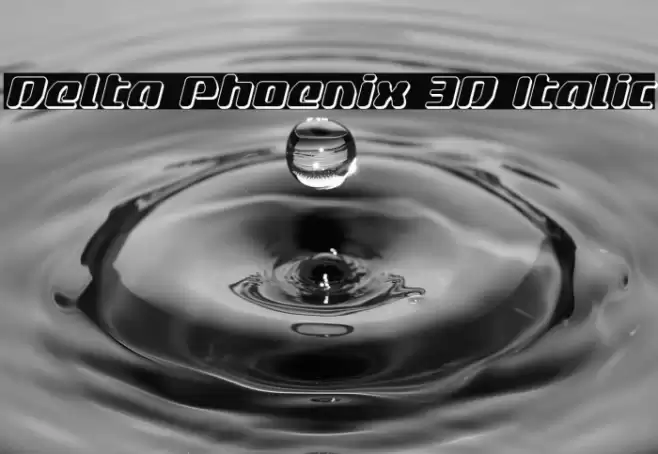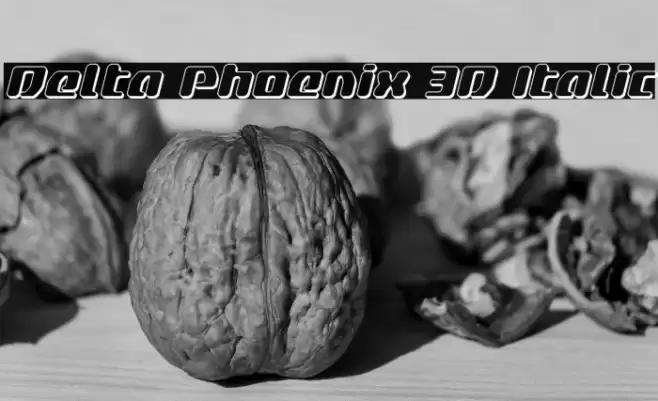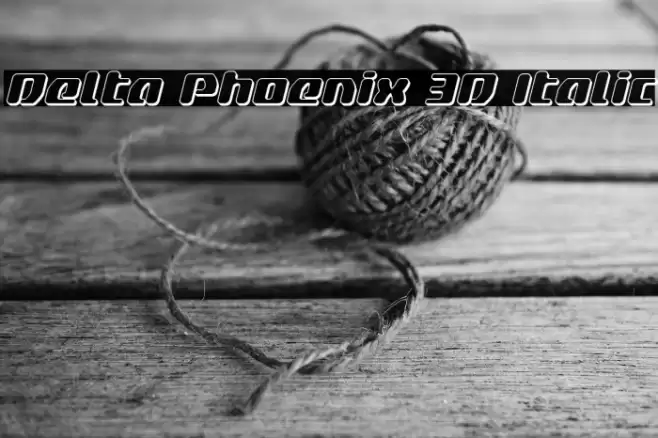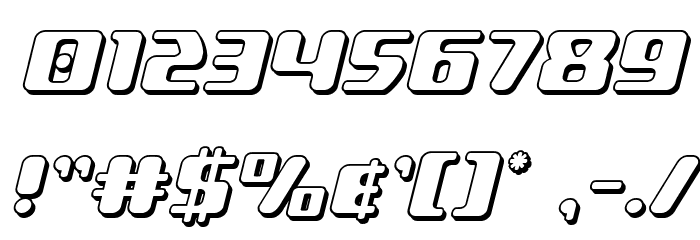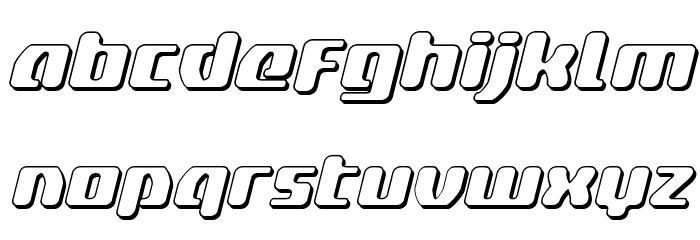
Delta Phoenix 3D Italic Font
Delta Phoenix 3D Italic Description
This font features a bold, three-dimensional design with an italic slant, giving it a dynamic and futuristic appearance. The characters are outlined with a thick black border, creating a striking contrast against the white interior. The geometric shapes and rounded edges contribute to a modern and playful aesthetic. The uppercase and lowercase letters maintain a consistent style, while the numerals and special characters are designed to match seamlessly. This font's unique 3D effect makes it stand out, ideal for projects that require a bold statement.
A bold, 3D italic font with a modern, futuristic style from Uncategorized fonts.
- Proposed Projects: Ideal for video game titles, tech branding, futuristic posters, and digital art projects.